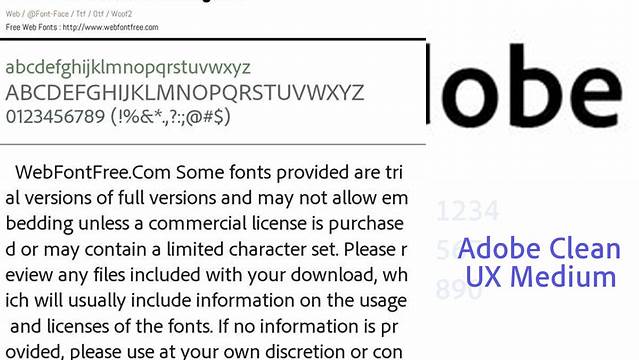
Hey everyone! Today, we're diving headfirst into the awesome world of typography, specifically focusing on the Adobe Clean Font Family and how you can snag it for free. This font family is a real gem, perfect for a bunch of different projects, from sprucing up your website to creating killer presentations. This article will walk you through everything you need to know, including how to download it safely, what makes it so special, and how to use it like a pro. So, grab your favorite drink, and let's get started!
Adobe Clean Font Family: What Makes It So Special?
Alright, let's kick things off by talking about what makes the Adobe Clean Font Family so darn special. Well, for starters, it's incredibly versatile. This font family is designed to be clean, modern, and easy to read, making it a top choice for a wide variety of uses. Whether you're crafting a sleek business document or designing a user-friendly website, Adobe Clean has got your back. It's like the Swiss Army knife of fonts! The characters are meticulously crafted with a focus on readability and aesthetics. You'll notice a certain balance in the letterforms, making text visually appealing and easy on the eyes. This is crucial for things like long-form articles or any content where you want people to actually, you know, read it! What sets it apart is its legibility across different sizes and media. This is super important because you want your text to look great whether it's on a tiny phone screen or a massive projector. With Adobe Clean, you can be confident that your message will come across crystal clear. It's designed to handle all the formatting you throw at it. The Adobe Clean Font Family is all about flexibility.
Beyond just being readable, Adobe Clean also brings a touch of professionalism and sophistication to your work. It's the kind of font that says, "I know what I'm doing." This is especially helpful if you're aiming for a polished and trustworthy brand image. This font helps to grab attention and leave a lasting impression. It's a perfect choice for anyone who wants their work to look both modern and reliable. The best part? You're not just getting one font; you're getting a whole family! Adobe Clean usually comes with a range of weights and styles. This variety lets you create depth and visual interest in your designs. You can use light versions for headings, medium weights for body text, and bold styles for emphasis. This range allows you to have a consistent look across your project. Choosing the right font can transform your design from bland to brilliant. Adobe Clean offers everything you need to create visual harmony and effective communication. It really is a fantastic all-around font.
Adobe Clean Font Family Styles and Weights: What to Choose?
Okay, let's talk about the fun part: the Adobe Clean Font Family styles and weights! This is where you can really play around and make your designs pop. The family often includes a range of weights, from light and thin to bold and heavy, and that will help you create a visual hierarchy. For example, you could use a lighter weight for body text to make it easy to read and a heavier weight for headings to grab attention. Experimenting with different weights can drastically change the look and feel of your project. Think about what you want to communicate. If you want something clean and minimalist, you might stick to a few key weights. If you want something more dynamic, try mixing it up!
Adobe Clean usually comes in both regular and italic styles. This adds even more options for emphasizing text and adding visual interest. Italics are great for quotes, emphasis, or to create a sense of movement. Consider how the different styles work together. Pairing a bold heading with regular body text can create a strong contrast. It's all about balance. When choosing styles and weights, think about readability. Make sure your text is easy to read, even at different sizes. Test it out on different devices and screens. Think about the overall tone and purpose of your project. Do you want to come across as formal or casual? The font you choose can set that tone. Play around with different combinations. The best way to find what works is to experiment and see what looks best. Get creative, and have fun!